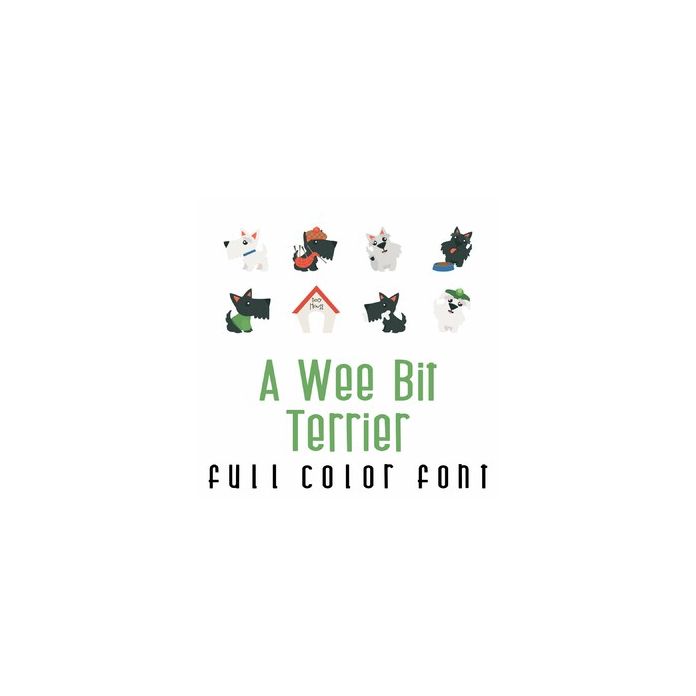
This adorable full color doodlebat font features cut Scottie Dogs and all their perfectly Scottie items. Perfect for cards, crafts, gifts, decor, scrap book pages, planner stickers and more!